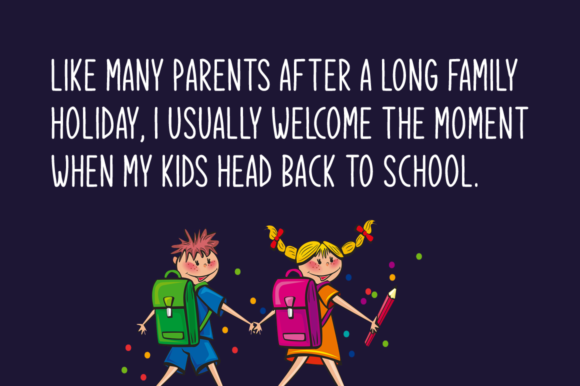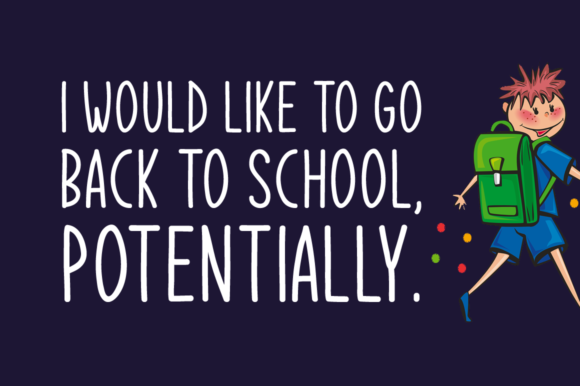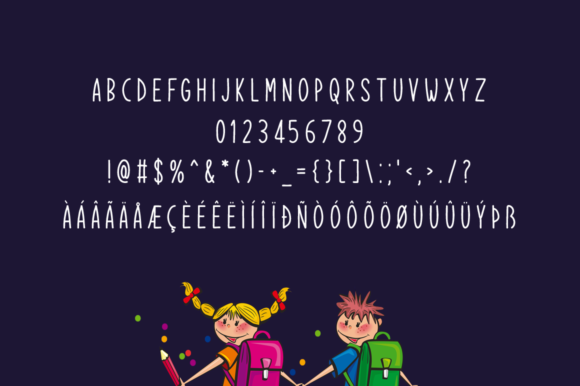
Happy Student Font
Happy Student is a cool and fun handwritten font with a charming vibe. It will turn any school-themed design project into a stand out!